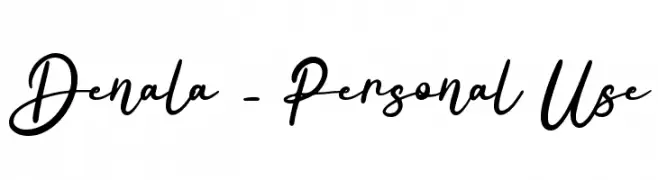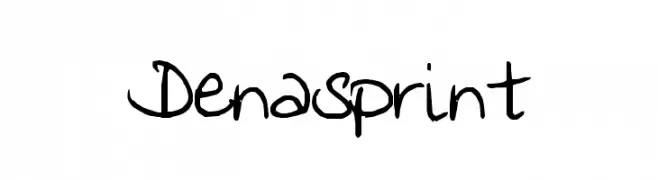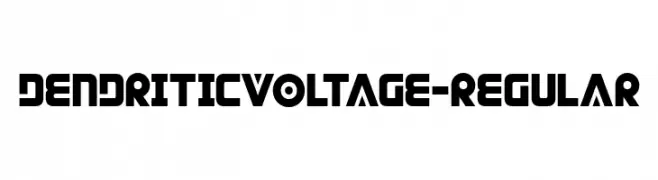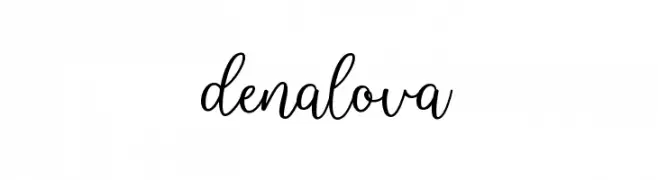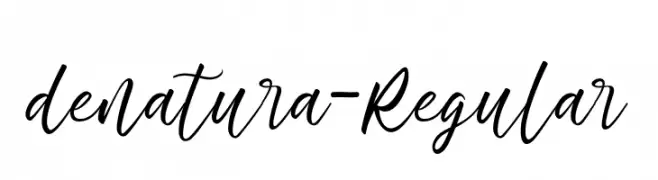
A lively and expressive handwritten font with fluid, dynamic strokes.
A flowing, cursive script with elegant loops and a handwritten feel.
A graceful and elegant script font with flowing cursive letters.
A graceful and elegant script font with flowing, cursive strokes.
A flowing, cursive font with a handwritten, elegant style.
A bold, geometric font with a futuristic and digital aesthetic.
A bold, geometric font with a futuristic and modern design.